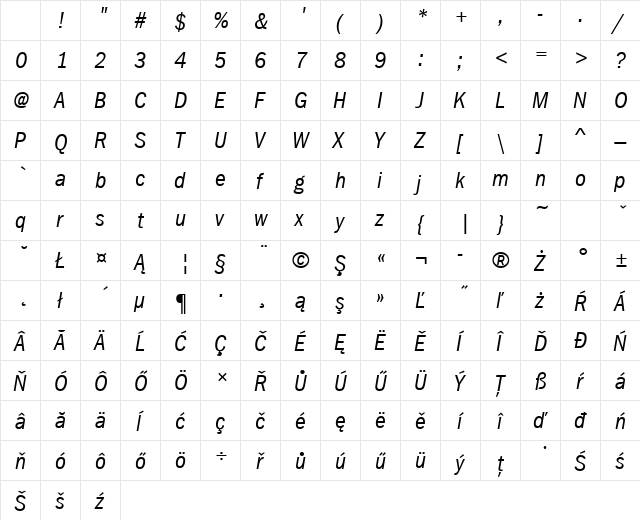
Complete FranklinGotItcTEEBooCon Italic glyph index. Displaying only characters natively supported by FranklinGotItcTEEBooCon Italic font.
FranklinGotItcTEEBooCon is a composed and adaptable typeface that performs quietly and consistently across a wide range of design contexts. The slanted form adds forward momentum and visual energy.